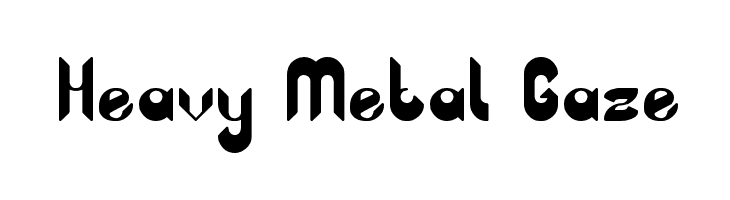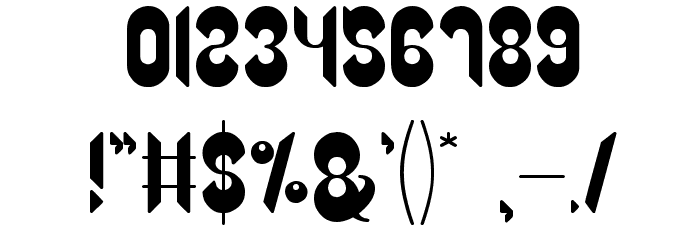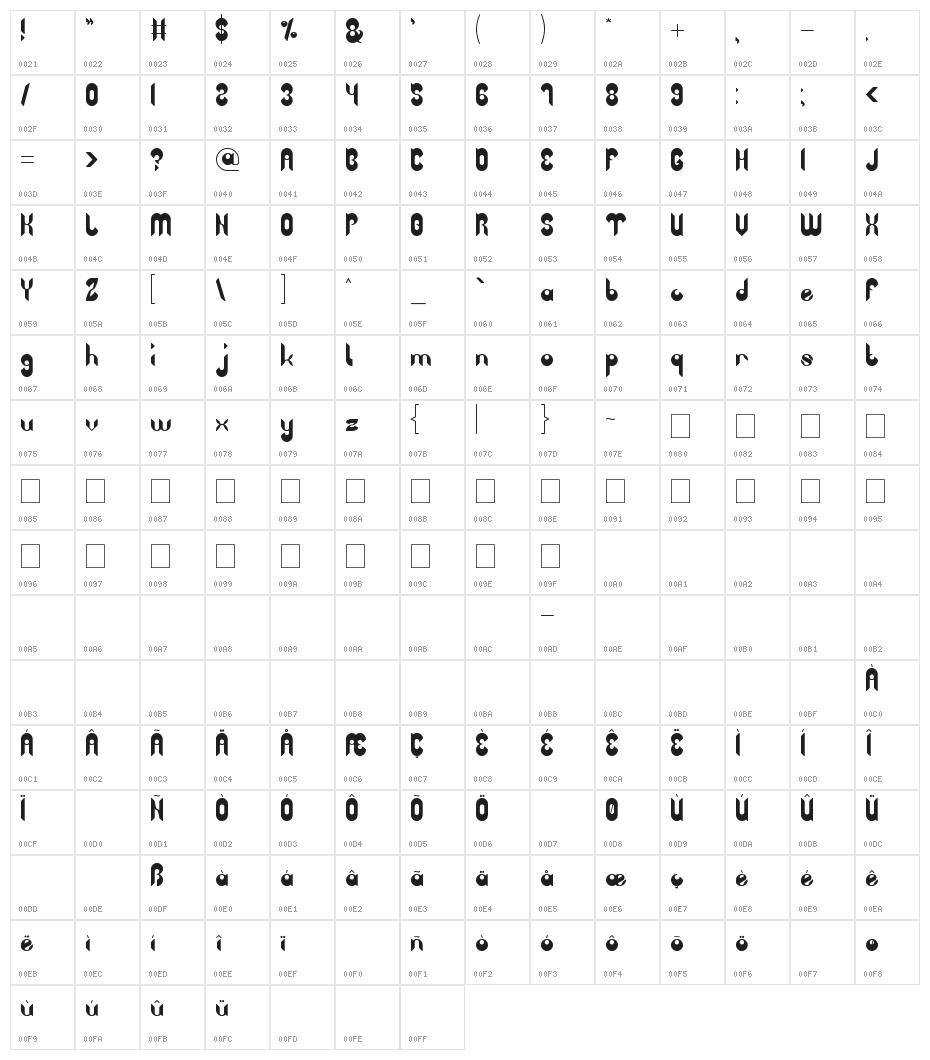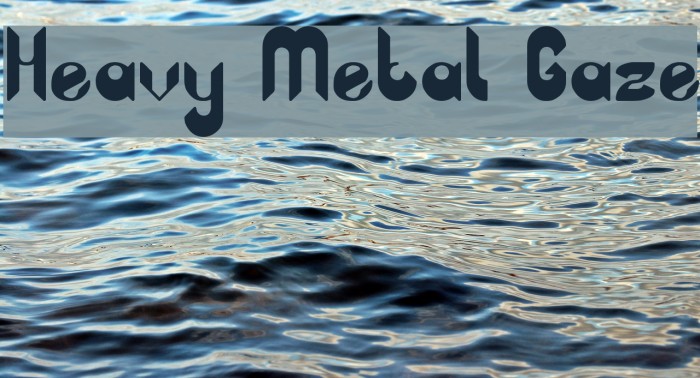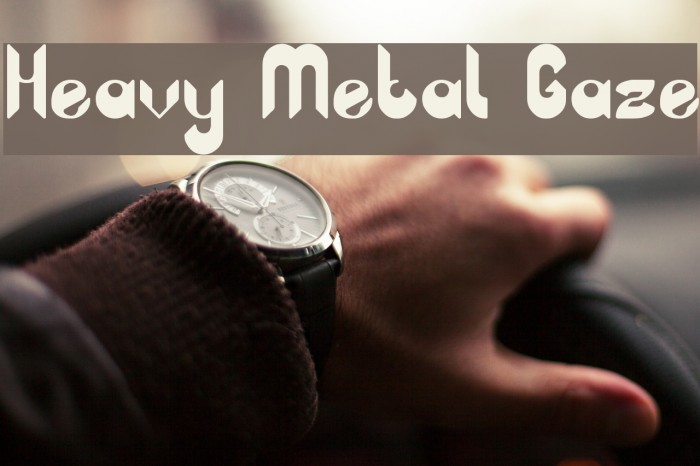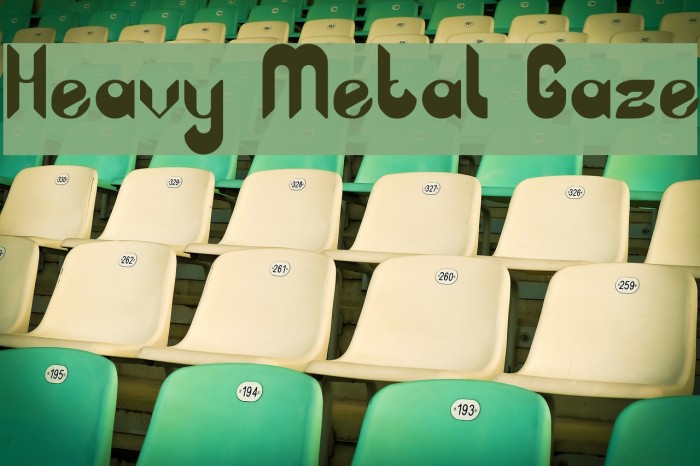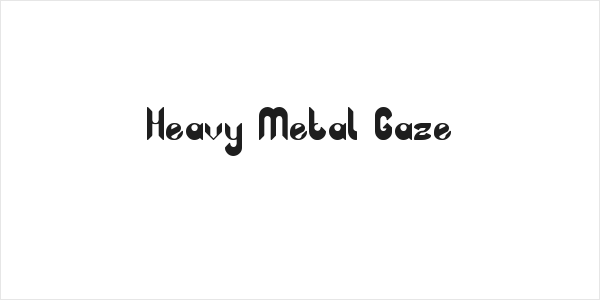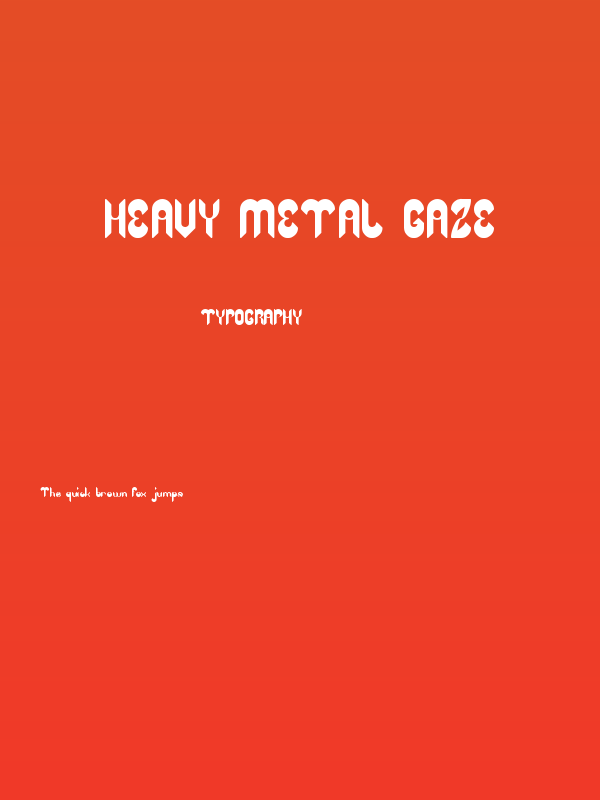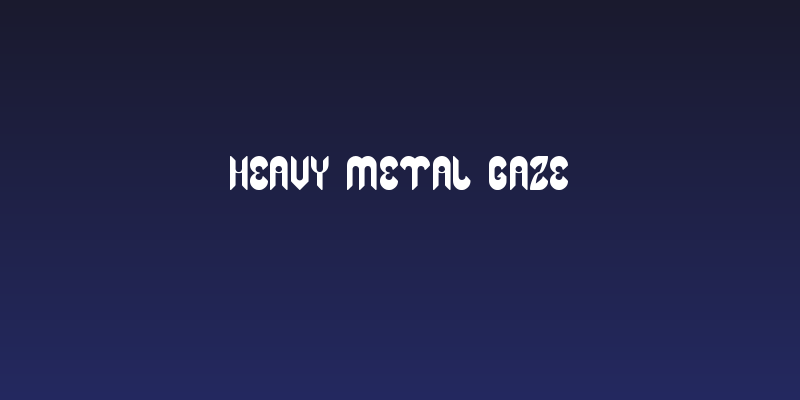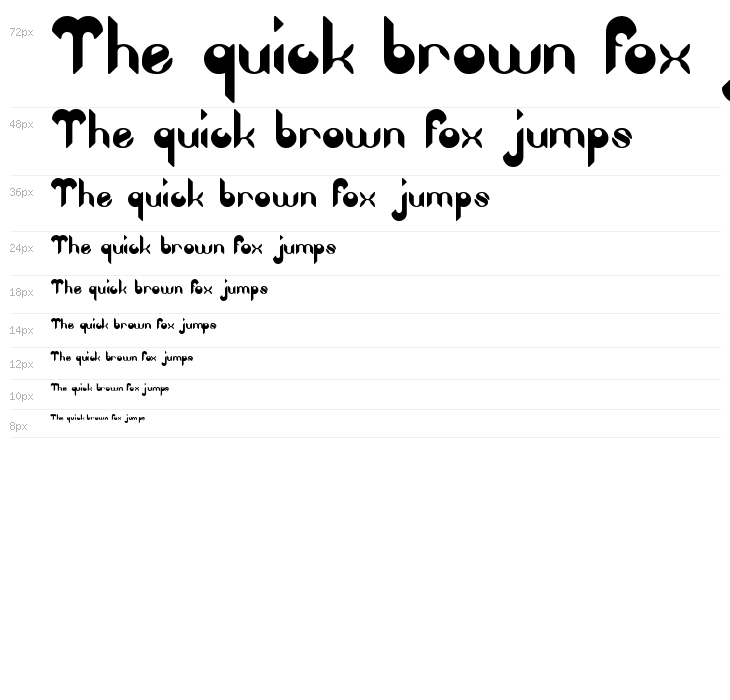
Heavy Metal Gaze Font
Heavy Metal Gaze Description
This font exudes a bold and edgy aesthetic, characterized by its sharp angles and thick strokes. The uppercase letters are particularly striking, with a heavy, almost metallic appearance that suggests strength and intensity. The lowercase letters maintain a consistent style, offering a cohesive look across different text sizes. Numbers and special characters are designed with the same boldness, ensuring uniformity throughout. This font is ideal for projects that require a strong visual impact, such as music album covers, posters, or branding for edgy and modern products.
| Proposed Projects | Ideal for music album covers, posters, branding for modern and edgy products, and any design needing a strong visual impact. |